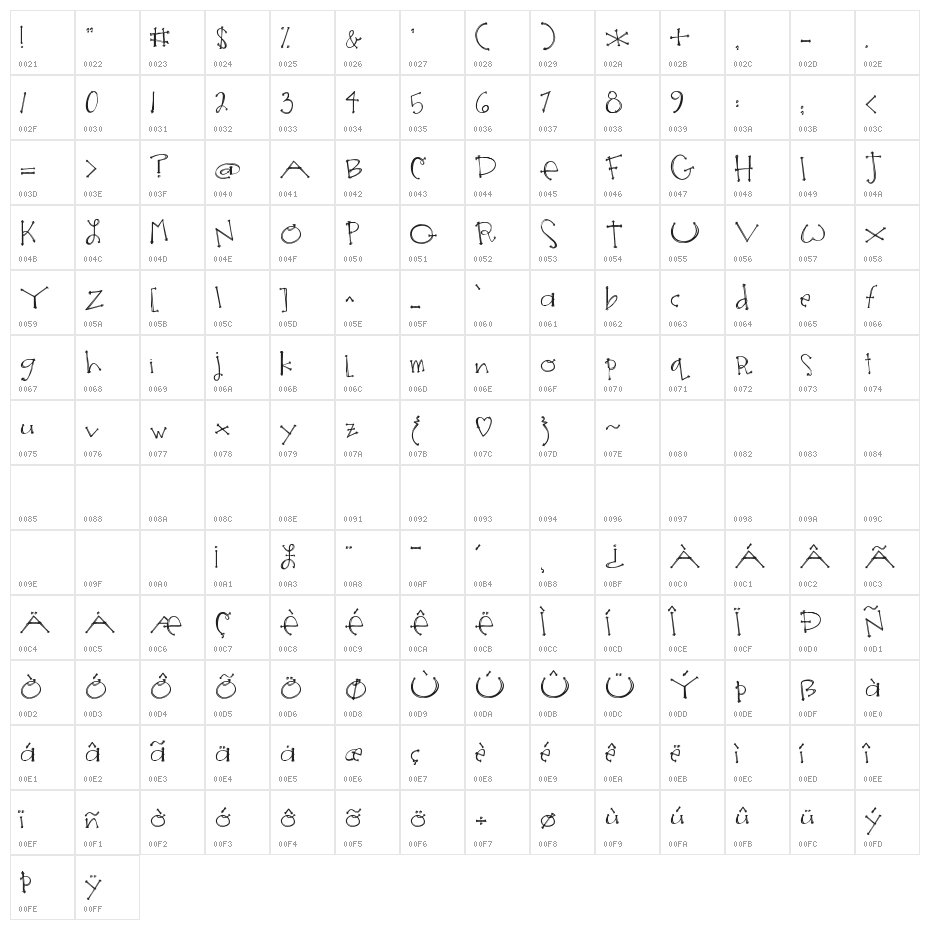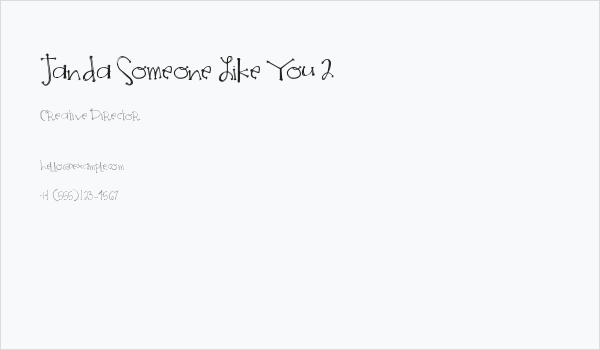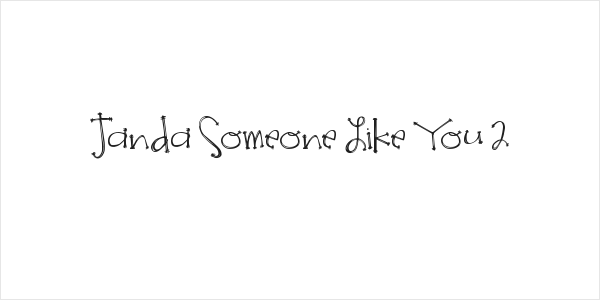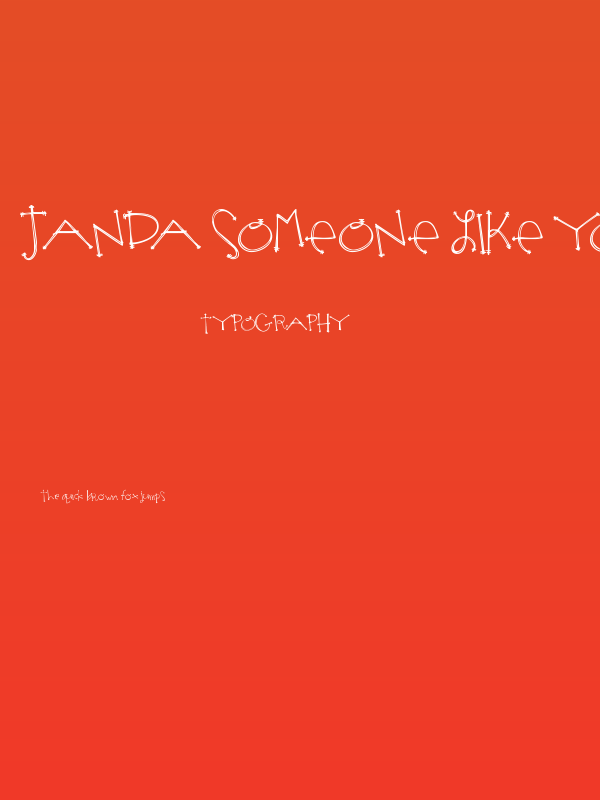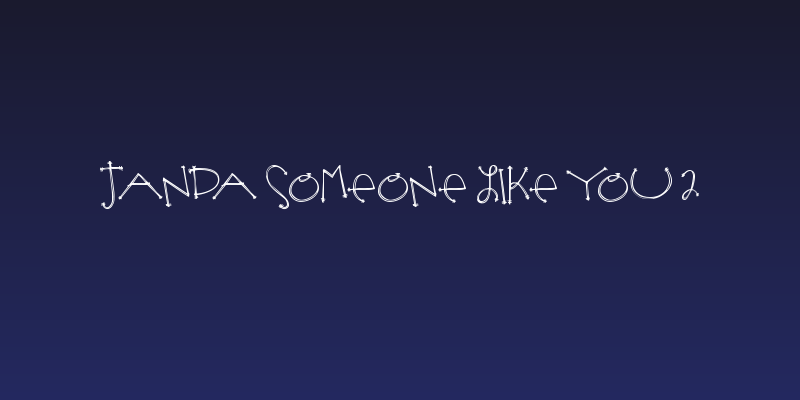
Janda Someone Like You 2 Font
Janda Someone Like You 2 Description
This font features a playful and whimsical design, characterized by its unique hand-drawn style. Each letter is adorned with small decorative elements, such as stars or dots, giving it a quirky and artistic appearance. The strokes are uneven, adding to the casual and informal feel. The overall look is reminiscent of doodles or sketches, making it ideal for creative and fun projects. The font maintains a consistent style across uppercase, lowercase, numbers, and special characters, ensuring a cohesive look in any text application.
| Overall Style | Whimsical, Artistic |
| Proposed Projects | Ideal for children's books, greeting cards, playful branding, and creative posters. |